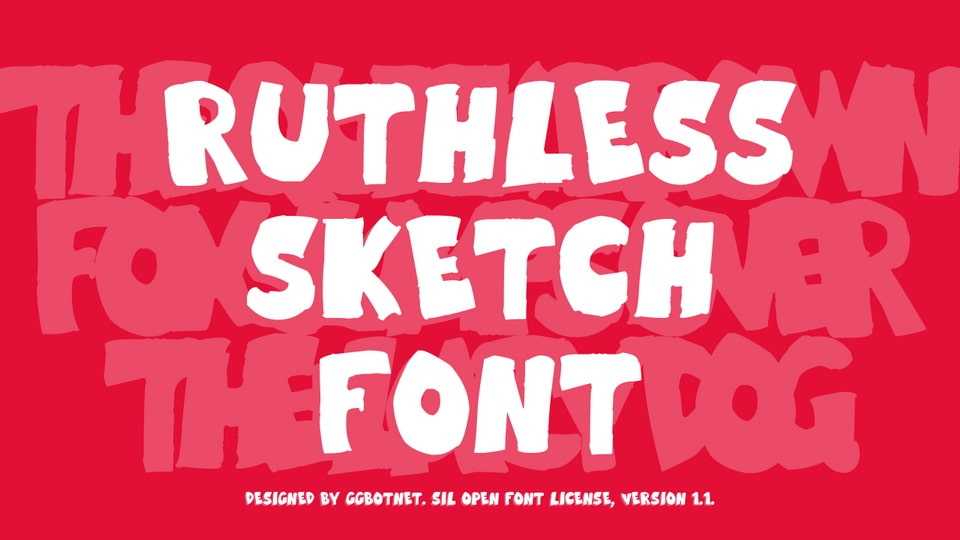
Download Ruthless Sketch font, a bold, playful, and quirky hand-crafted typeface that’s full of character and fun bringing a unique, hand sketched feel.